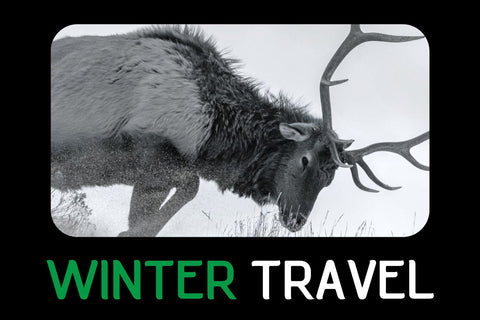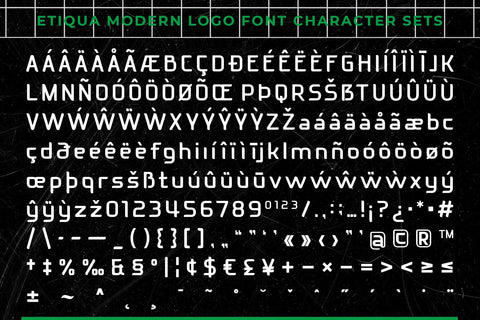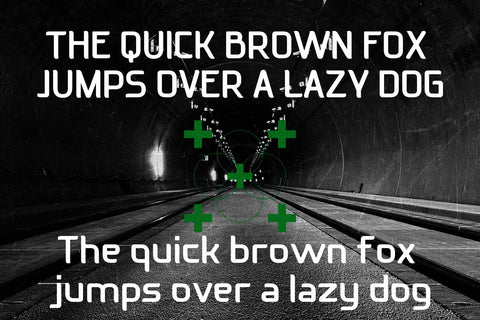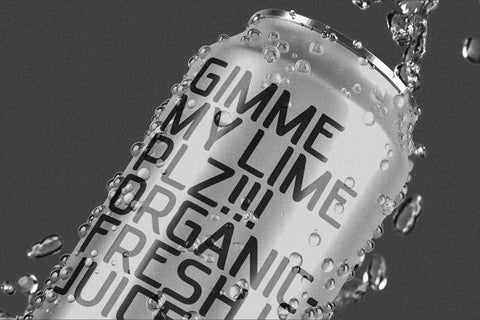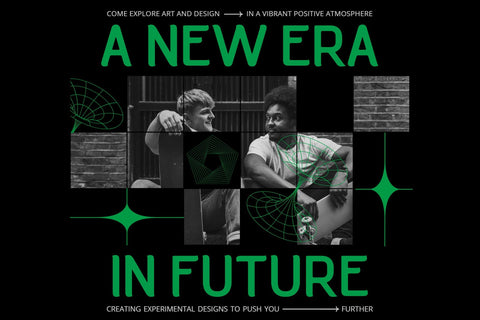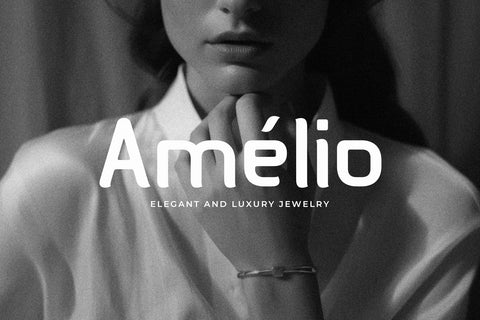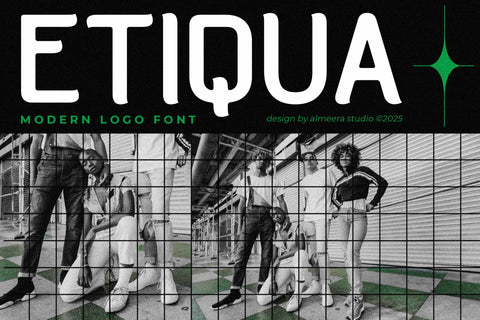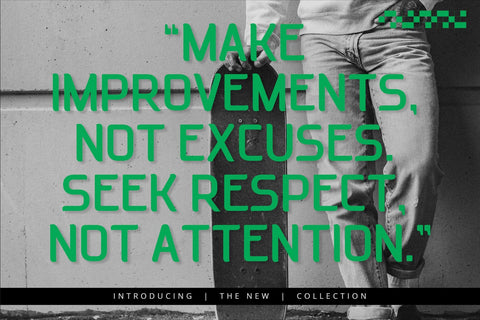
Etiqua - Modern Logo Font
Introducing Etiqua - Modern Logo Font. Etiqua is a modern display san serif font, This type of font is very suitable for your various needs such as branding projects, logos, social media posts, advertisements, labels, product packaging, photography, wedding designs, watermarks, invitation product designs, stationery, and any project.
FEATURES:
- Multilingual support
- Punctuation
- Numerial